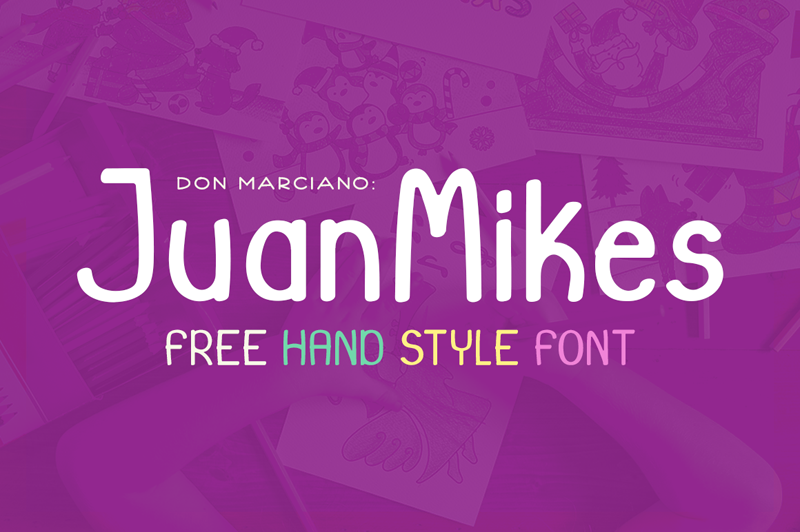
Preview and download Juan Mikes Font. Created by Don Marciano in Script Handwritten styles with 100% Free license.
A freehand inspired sans serif style font that is perfect complement for any design or illustrations with long or short texts, the file comes in .OTF format. |